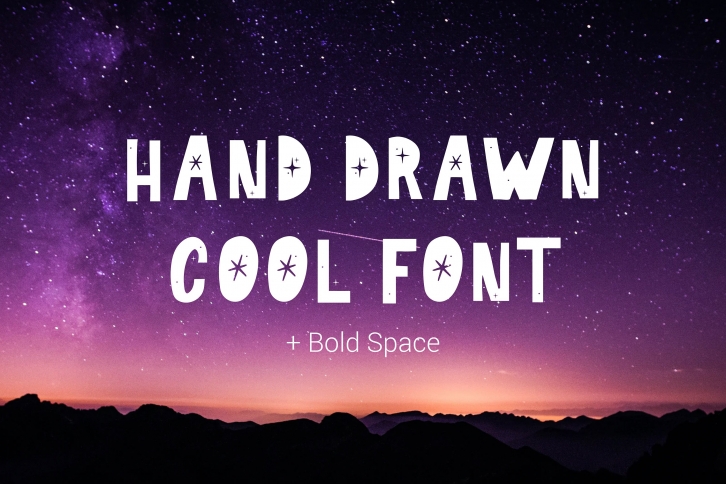
CoolFont - a fun font in the style of a sketch, suitable for decorating holidays and children's designs. Includes 4 fonts - Regular, Space, Bold, Bold Space.